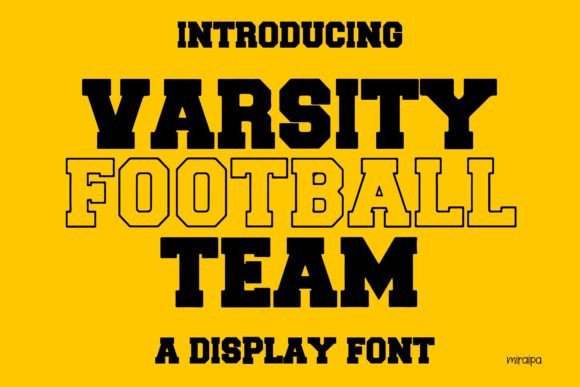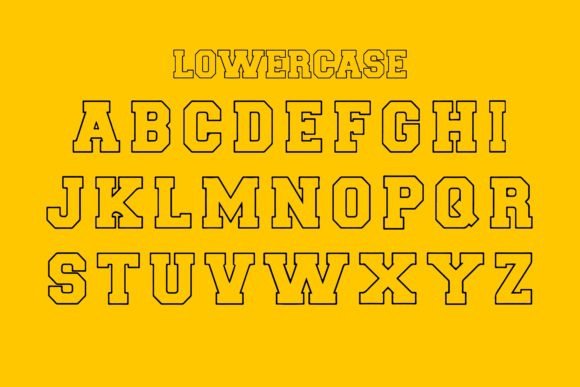
Varsity Football Team Font
Varsity Football Team is a fun and modern display font, inspired by classic sport-style typefaces. Add it confidently to your projects and you will love the results!